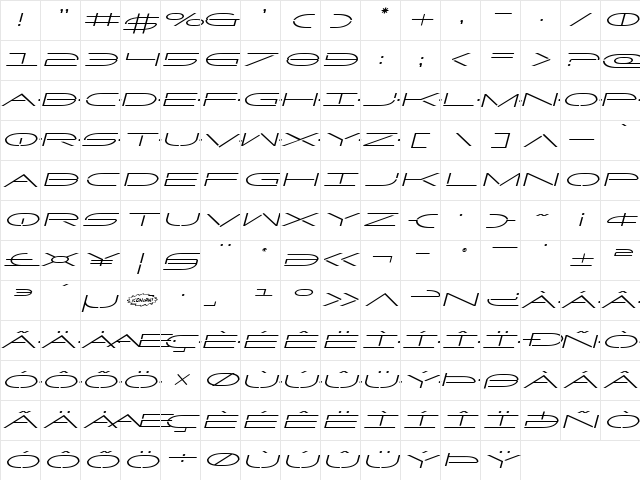
Factor Expanded Italic Expanded Italic
Design Context for Factor Expanded Italic Typeface
Factor Expanded Italic takes a measured approach to typography — its balanced proportions and neutral character make it a reliable workhorse for both digital and print work. Its italic angle brings a sense of urgency and motion to the letterforms.
Pro Tip: Try Factor Expanded Italic for annotation and caption copy alongside an upright companion — the contrast in angle creates a dynamic but ordered typographic system.